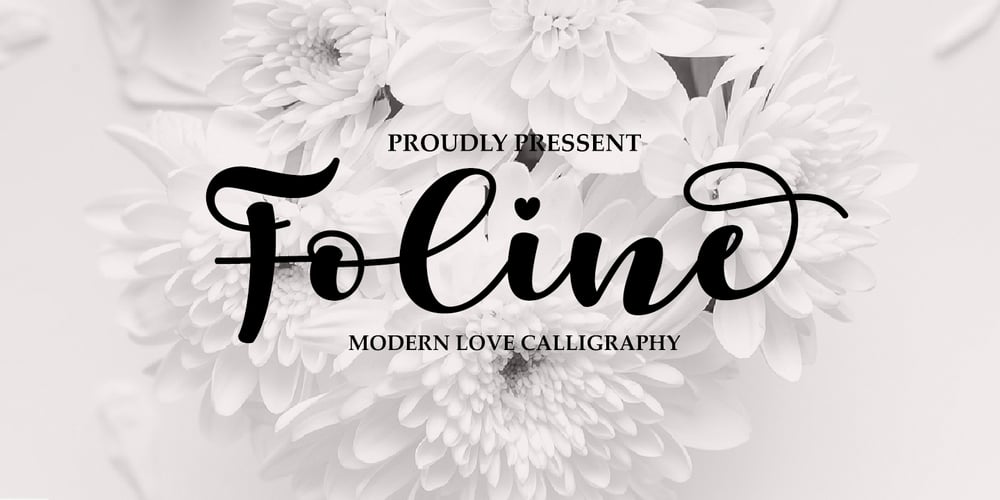
Foline Font Family was designed by khaidir and published by Gatype. Foline contains 1 styles and family package options. Foline , stylish modern calligraphic script with lots of personality. Beautiful Opentype features with beautiful standard ligatures that replicate natural handwriting. Easily personalize her look with its many alternative glyphs, binders, and swashes. She’s a natural for logo, stationery, and product design projects looking for a dynamic, personal vibe.If you don’t have a program that supports OpenType features such as Adobe Illustrator and CorelDraw X Versions, you can access all of the alternative glyphs using Font Book (Mac) or Character Map (Windows):